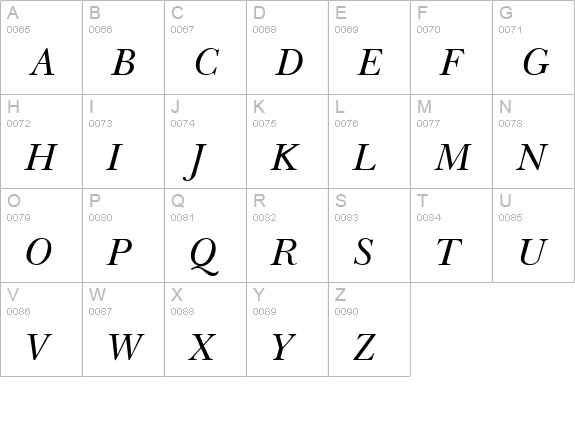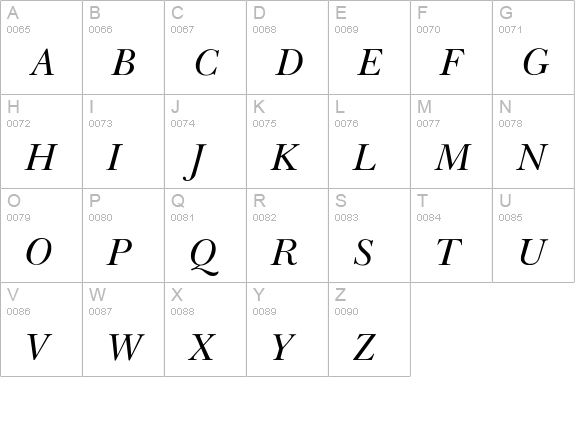
Basset kursiv Font Details
Basset Kursiv is a charming and elegant font that exudes a timeless appeal. Its flowing lines and graceful curves make it perfect for adding a touch of sophistication to any design project. Whether you are creating invitations, branding materials, or social media graphics, Basset Kursiv will elevate your work with its classic style. What's even better is that Basset Kursiv is available for free download at FontsMarket.com. This means you can easily access this stunning font without breaking the bank. Don't miss out on the opportunity to enhance your designs with the beauty of Basset Kursiv. Download it today and let your creativity shine!